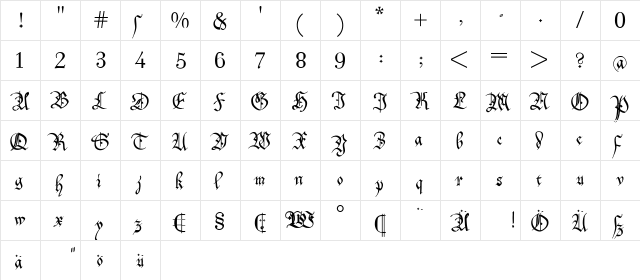
MonAmourAprilFraktur Regular
Design Context for MonAmourAprilFraktur Typeface
MonAmourAprilFraktur draws on the rich tradition of blackletter calligraphy, with dense, angular strokes that evoke medieval manuscripts and old-world craftsmanship.
A natural fit for music packaging, gothic editorial design, and any project that needs historical weight.
Font Pairing: Pair with a clean neutral sans-serif for body copy to let MonAmourAprilFraktur's character lead without overwhelming the composition.
Pro Tip: Reserve MonAmourAprilFraktur for display and logo use — pair it with a clean sans-serif for body copy to prevent the composition from feeling oppressive.